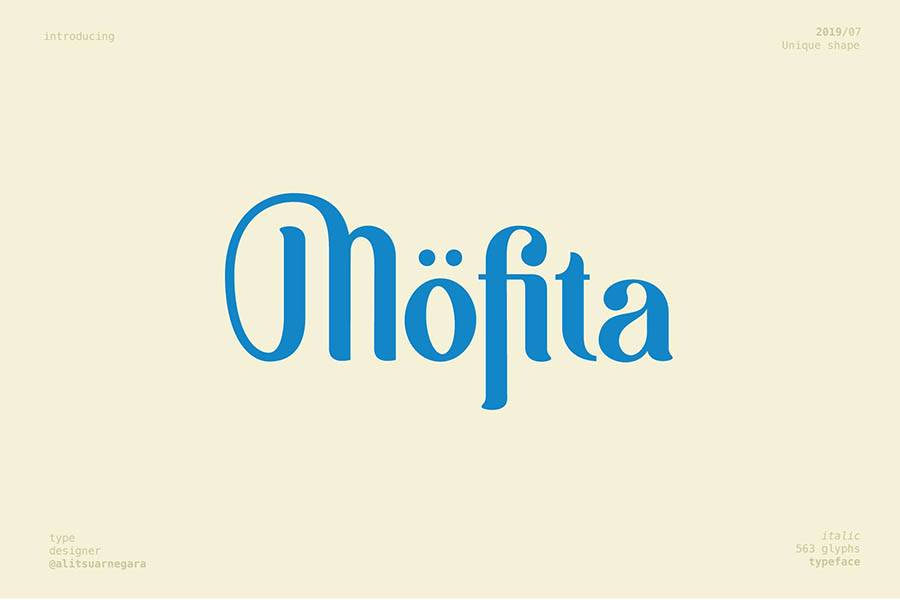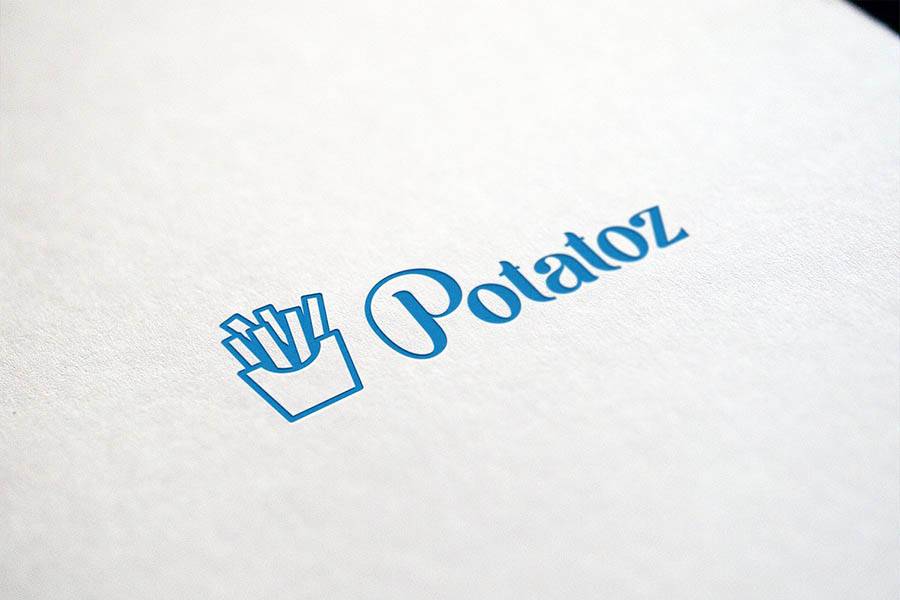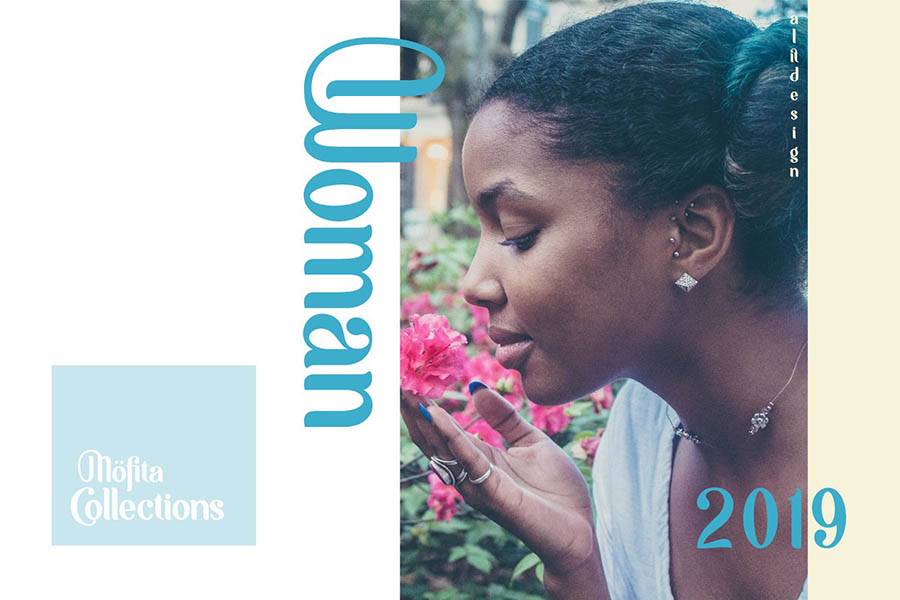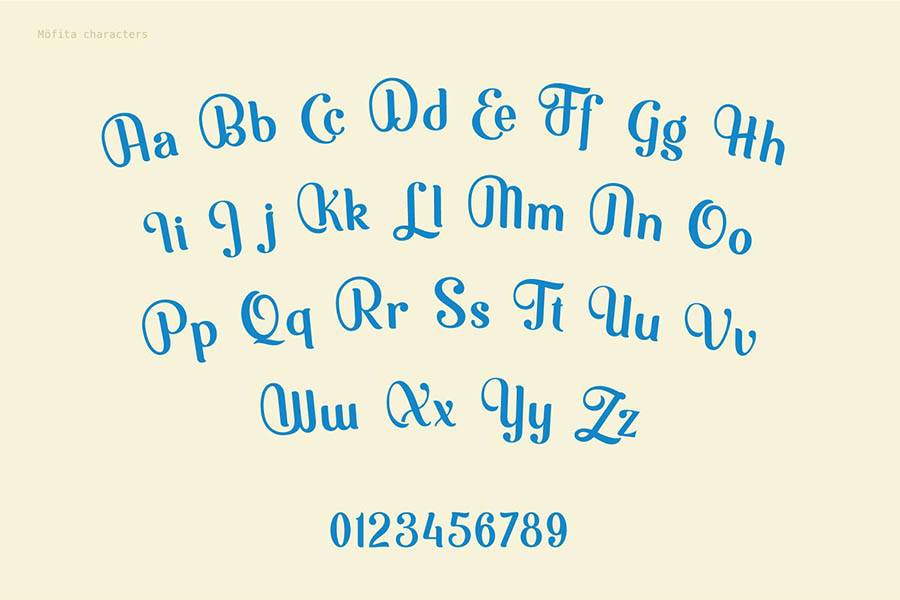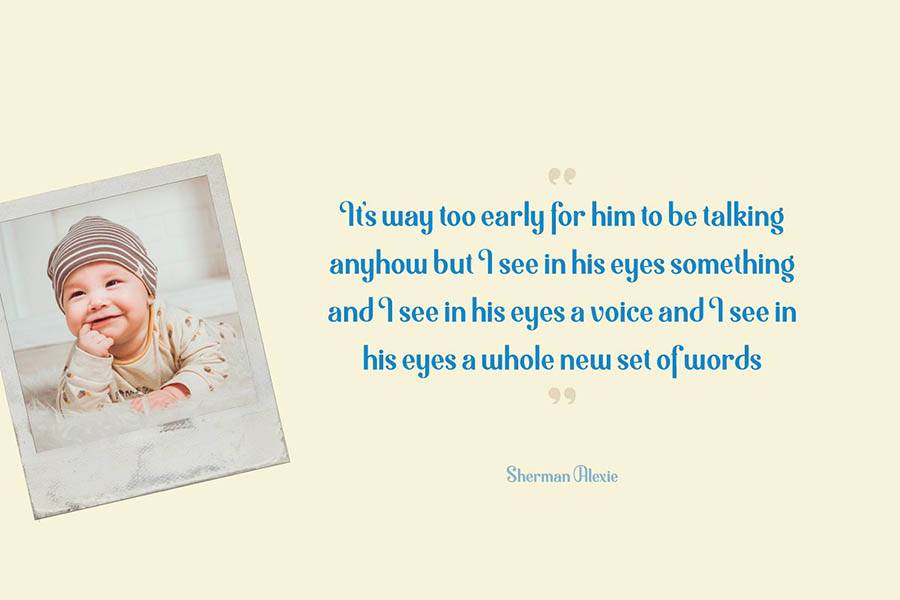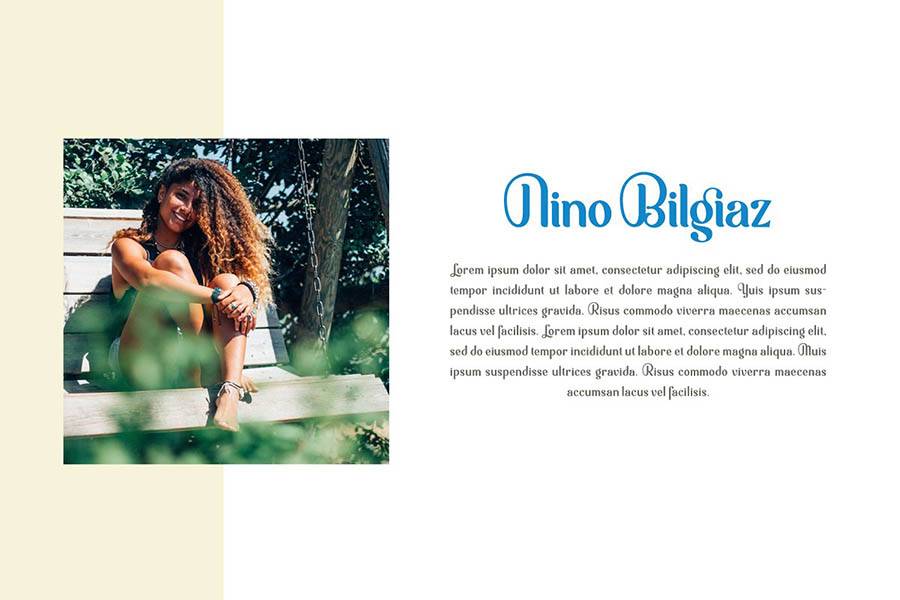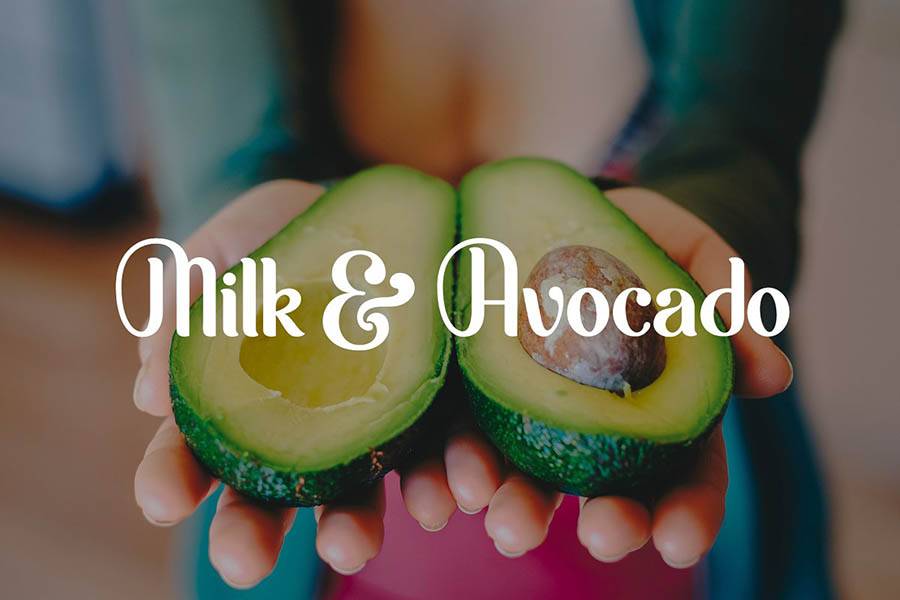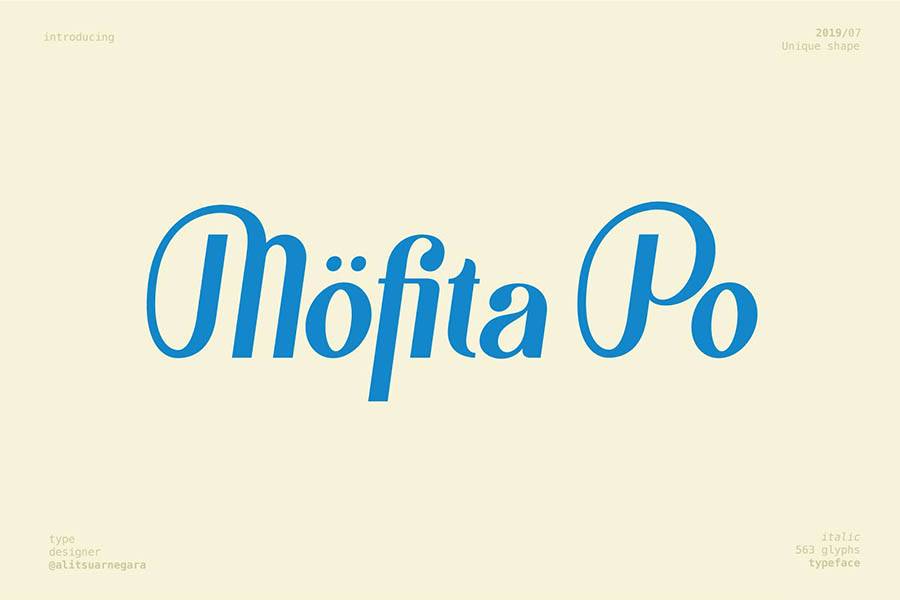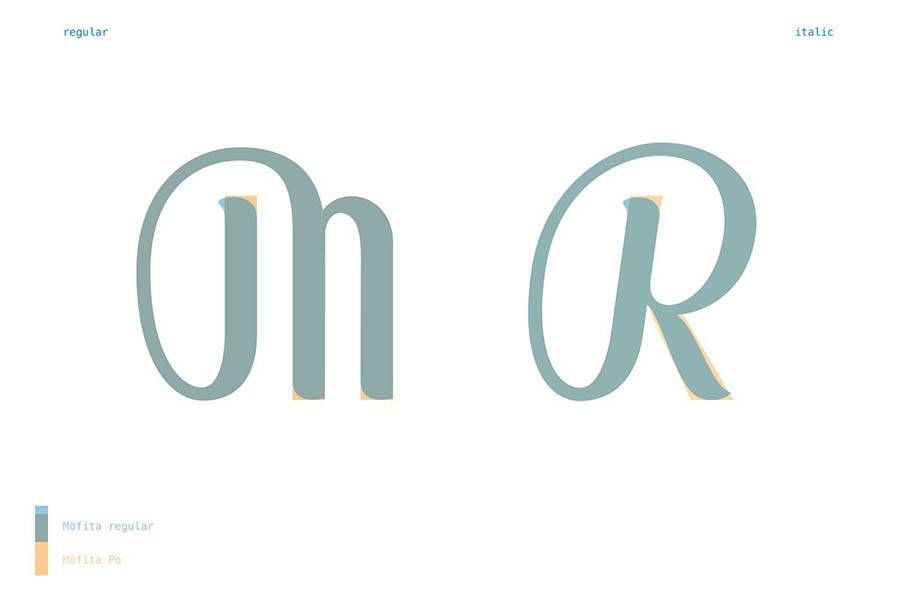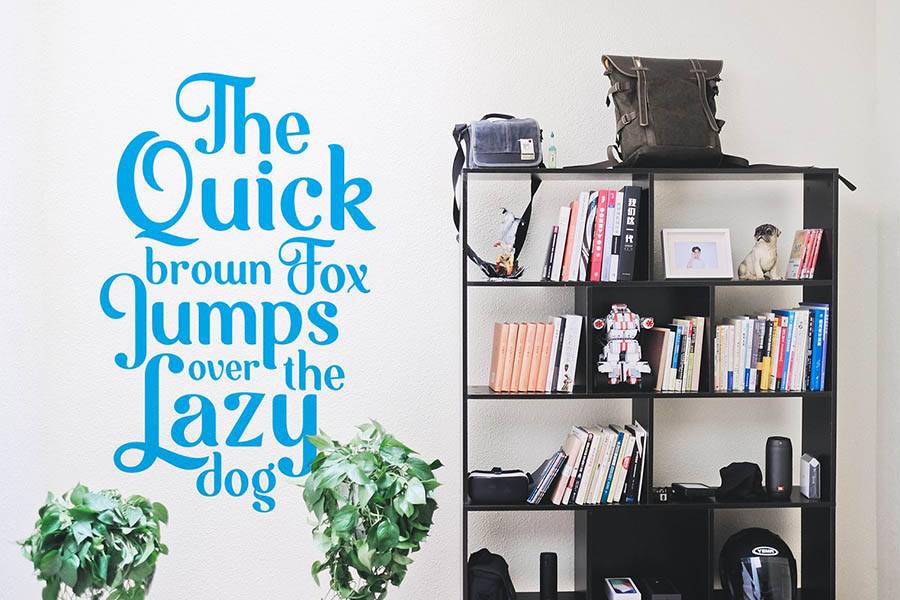
Mofita Display is a unique serif font with a high contrast between thick and thin strokes, featuring elegant, rounded letterforms and decorative swashes that give it a playful yet sophisticated character. Its distinctive shapes and artistic flair make it ideal for creative branding, headlines, and display uses where a stylish, modern vintage vibe is desired. This font works best in fashion, packaging, or editorial design that aims to stand out with a charming and memorable look.
| Font family | Mofita Display Font Demo |
| Release date | 2019-06-12 |
| Designer | Alit Suarnegara |